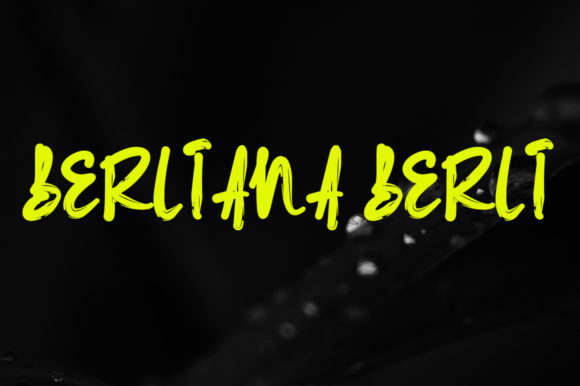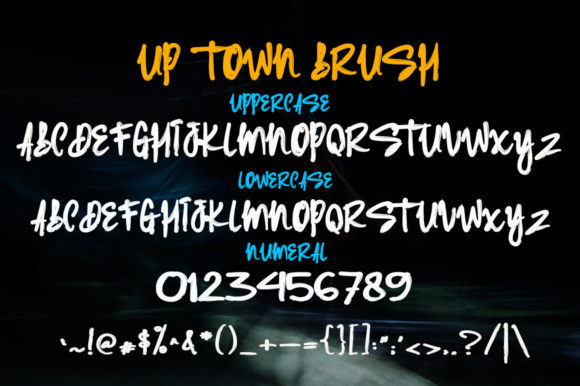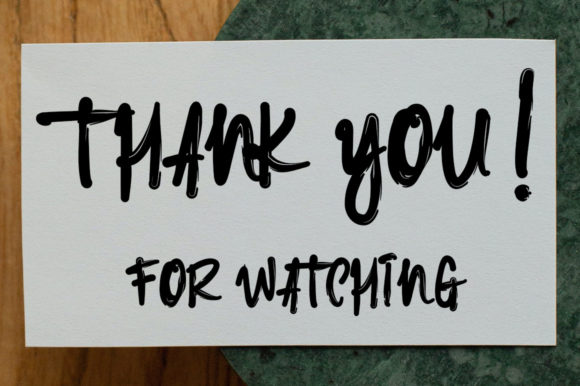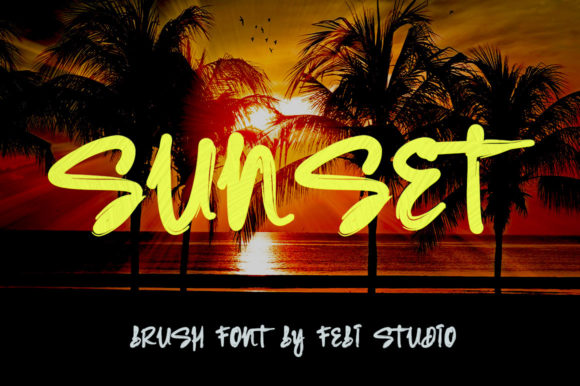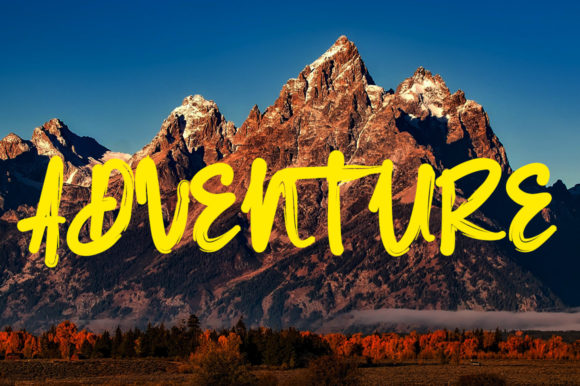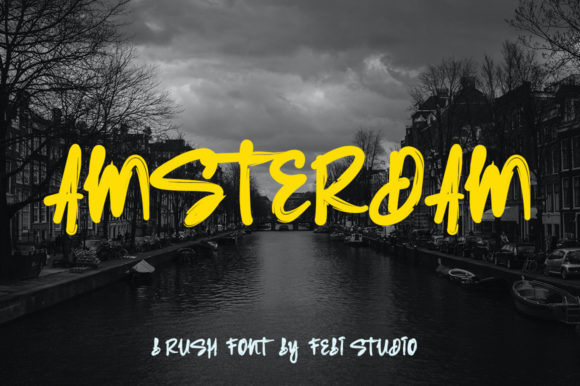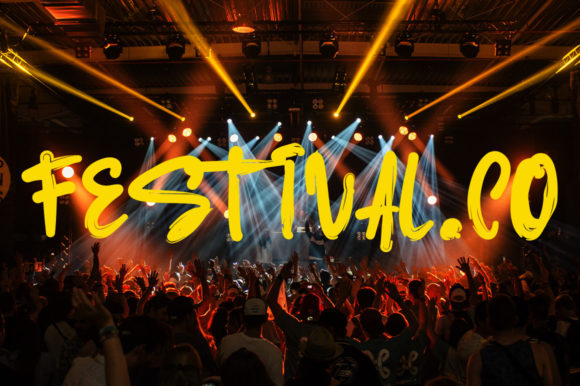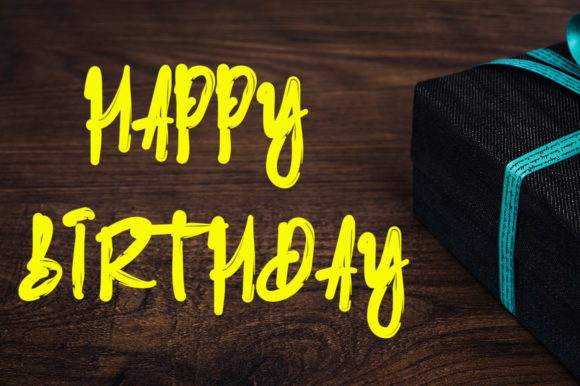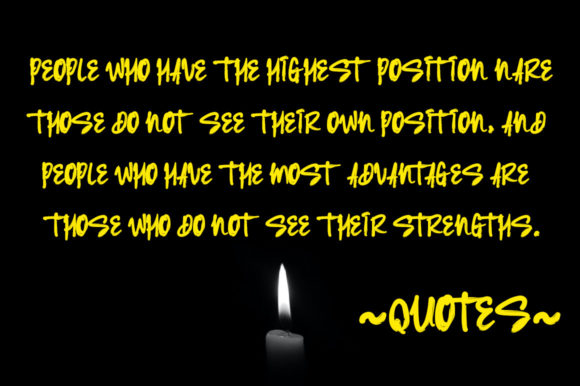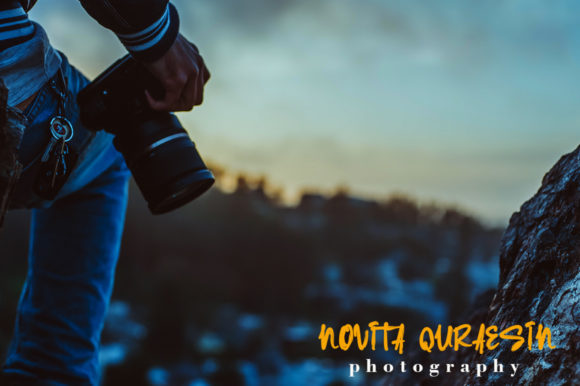
Up Town Brush Font
About Up Town Brush Font
Up Town Brush is a dynamic and expressive script font that effortlessly captures a sense of free-flowing energy and style. Crafted with meticulous attention to detail, this font offers a versatile solution for a wide array of design projects. Its fluid strokes and artistic flair make it an ideal choice for various applications, ranging from packaging products to invitation cards, flyers, mockups, and event posters.
The unique charm of Up Town Brush lies in its ability to infuse a sense of high-quality vibes into any design. Its carefully balanced characters exude a contemporary yet timeless appeal, ensuring that your creations stand out with elegance and sophistication. Whether you’re aiming to create eye-catching packaging for your products, design captivating invitation cards for special occasions, or craft attention-grabbing event posters that leave a lasting impression, Up Town Brush has the versatility to fulfill your creative visions.
Imagine using Up Town Brush to add a touch of artistic flair to your mockup designs, breathing life into your promotional materials, or infusing a sense of vibrancy into your branding efforts. This font’s free-flowing nature lends itself beautifully to projects where a sense of movement and dynamism is desired.
Moreover, the inherent high-quality vibes of Up Town Brush are complemented by its PUA encoded feature, which provides you with easy access to a range of glyphs and swashes. This empowers you to personalize and embellish your designs, adding an extra layer of uniqueness and creativity to your work.
In summary, Up Town Brush is more than just a font; it’s a creative tool that empowers you to elevate your design projects to new heights. With its expressive strokes and balanced character, it brings a sense of artistry and sophistication to every creation. Let the free-flowing energy of Up Town Brush inspire your imagination and transform your designs into captivating visual experiences.